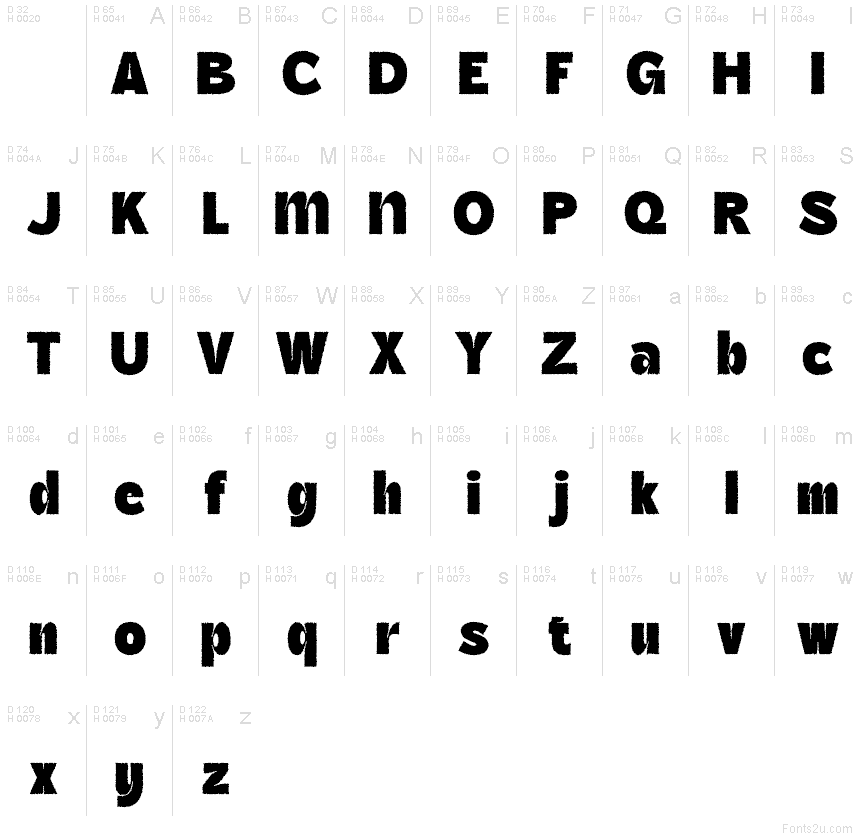
MarsenRough-Regular Demo
Marsen Rough font by Craft Supply Co. is a bold display font with eroded details and organic curves. A retro-inspired style with textured imperfections brings back the past vibes to any written text. Giving it a casual vibe despite an impactful presence, Marsen Rough makes distressed typography look easygoing.